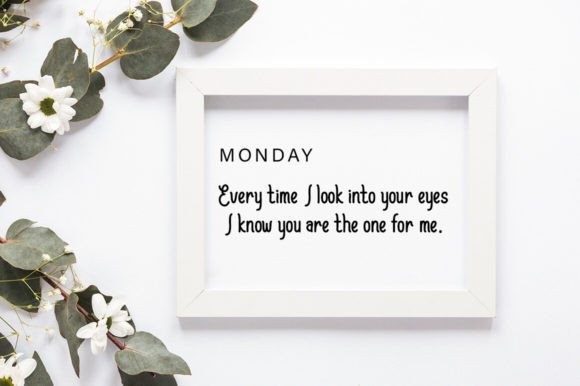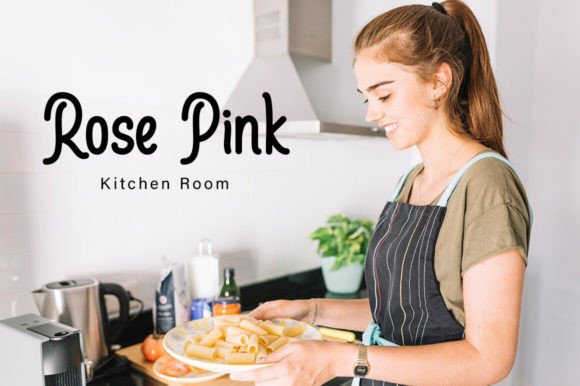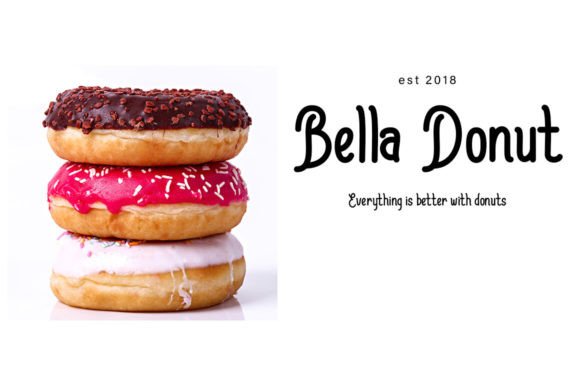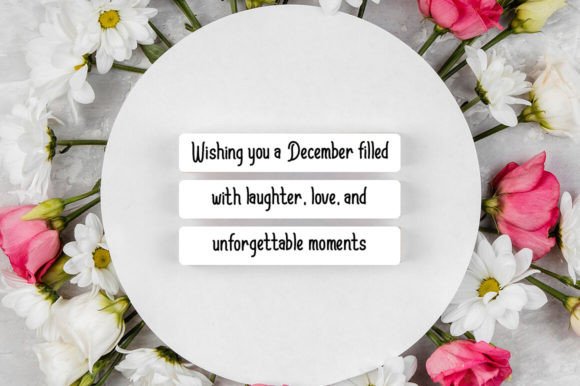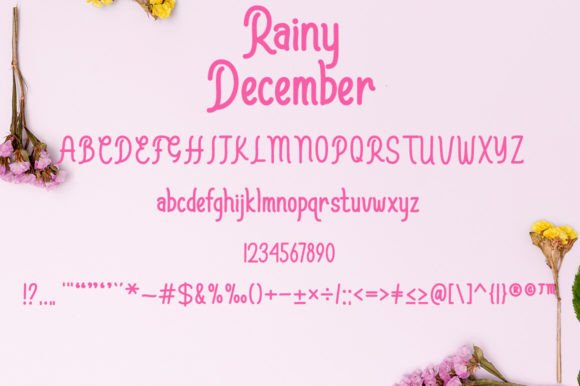
Introduction to Rainy December Font
Do you remember that moment when you finally found the perfect design element to bring your creative project to life? It’s like a spark of inspiration that sets off a chain reaction of excitement and possibility. For designers, it’s that ‘aha’ moment that makes all the hard work worth it. And today, we’re excited to share with you a design resource that’s sure to spark that magic: the Rainy December Font.
This fun and quirky handwritten font is a treasure trove of creative possibilities, waiting to be unleashed on your next project. With its unique charm and character, the Rainy December Font is perfect for adding a touch of personality to your designs, whether you’re working on a free download or a high-quality print piece. Its transparent background and high-quality design make it a versatile and valuable addition to any designer’s toolkit.
Key Features of Rainy December Font
- High-quality, hand-drawn design perfect for creative projects, including invitations, greeting cards, and more.
- Transparent background allows for seamless integration with any design resource, making it easy to customize and edit.
- Includes 20 unique characters, including uppercase and lowercase letters, numbers, and punctuation marks, making it a versatile design resource.
- Designed at 300 DPI resolution for high-quality printing and digital display.
- Perfect for designers looking for a unique and creative font to add a touch of elegance and sophistication to their projects.
Honest Review: Rainy December Font
I recently stumbled upon the Rainy December Font, and I must say, it’s a delightful addition to any design resource collection. As a designer, I’m always on the lookout for high-quality fonts that can elevate my creative projects.
One of the standout features of the Rainy December Font is its beautiful, hand-drawn aesthetic. The font’s transparent background makes it perfect for use on light-colored backgrounds, allowing the text to truly shine. I’ve used it in several design projects, and it’s always been a hit with clients.
Here are some of the things that work well with the Rainy December Font:
- ✨ Beautiful, hand-drawn aesthetic
- ✨ Transparent background for seamless integration
- ✨ Perfect for creative projects, such as invitations, quotes, and more
- ⚠️ Not ideal for use in large blocks of text due to its hand-drawn nature
Overall, I’m thoroughly impressed with the Rainy December Font. While it may have some limitations, its unique charm and high quality make it a valuable addition to any design resource collection. If you’re looking for a beautiful, free font to use in your creative projects, the Rainy December Font is definitely worth checking out.
Tips for Getting the Most Out of Rainy December Font
Use the Rainy December Font with a transparent background to create a unique design effect. Experiment with different font sizes and colors to create a visually appealing design. Combine the Rainy December Font with other design elements, such as images or shapes, to create a high-quality design for your creative project.
Common Use Cases for Rainy December Font
The Rainy December Font is suitable for a variety of creative projects, including posters, social media graphics, logos, and business cards. You can also use the font to create a design element for a website or a presentation. The font’s high-quality design and transparent background make it an ideal choice for designers and non-designers alike.